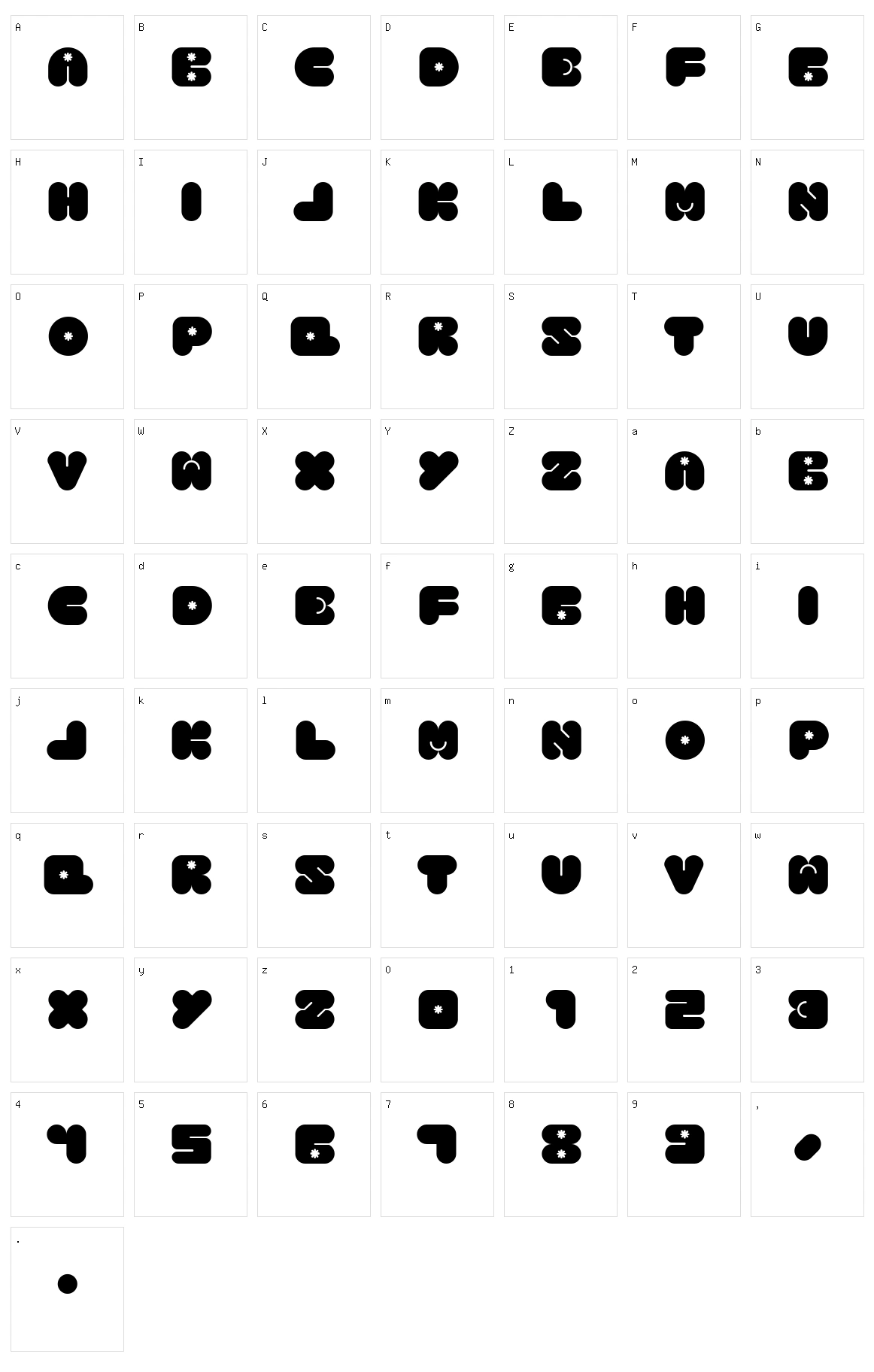
The free font Hazio is carefully designed by Nortenlab Studio, showcasing a thoughtful balance of creativity and usability and falls under the Groovy font style. When you download the ZIP file, it contains only 6.89 KB of font files, making it lightweight and quick to download. Please review the license details below to understand permitted usage and distribution rights. If license information is not available, we recommend using this font for personal projects only or contacting the author directly for commercial usage permissions.